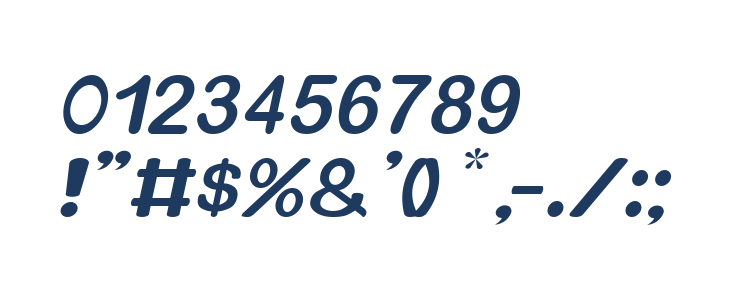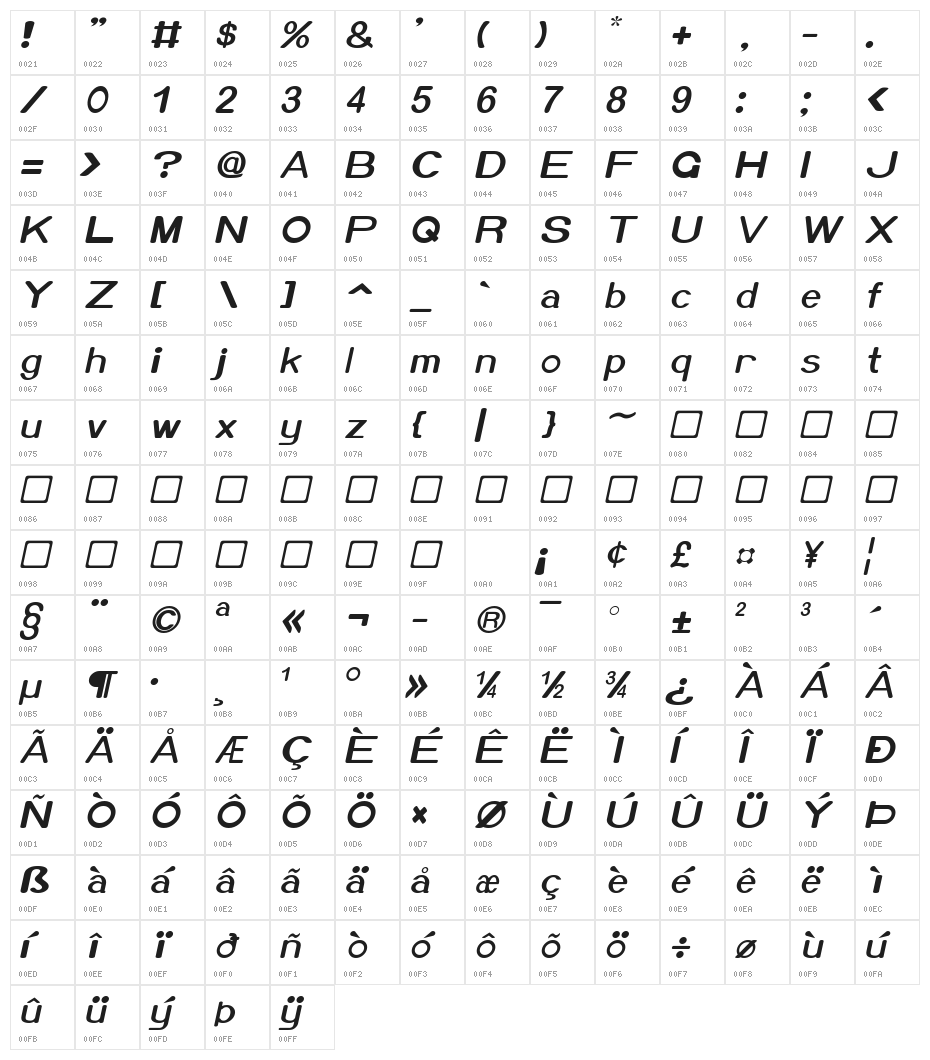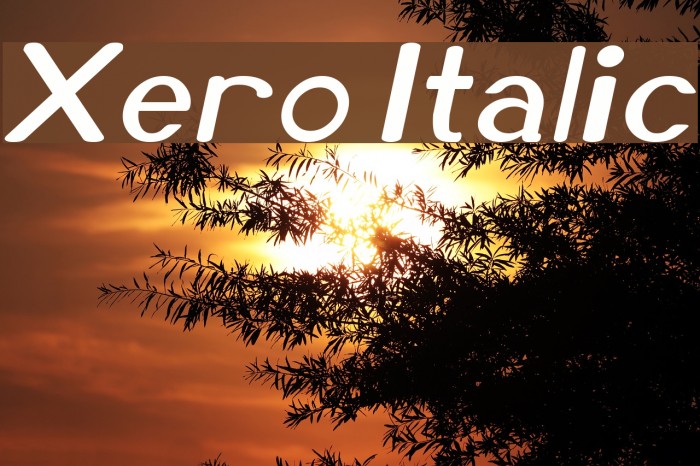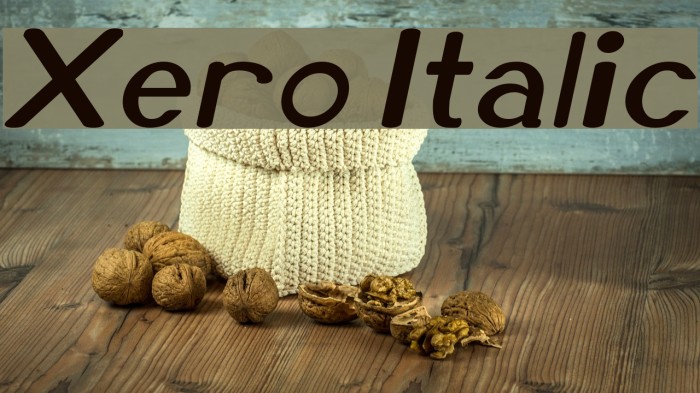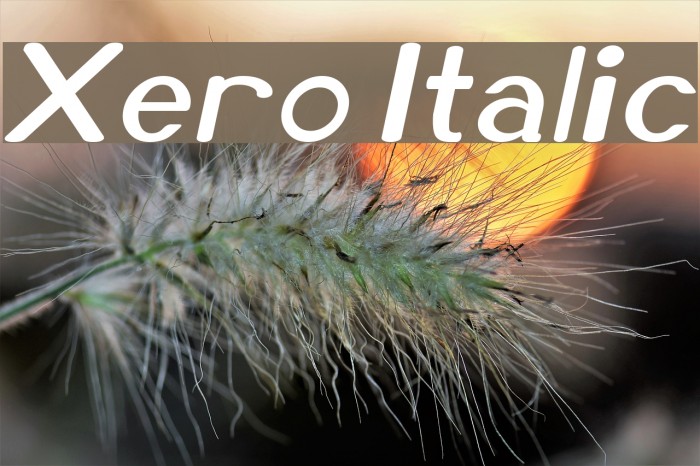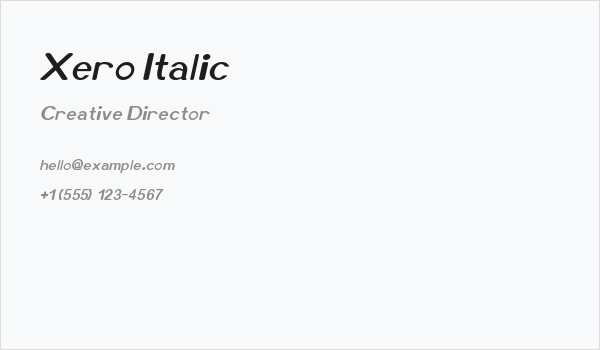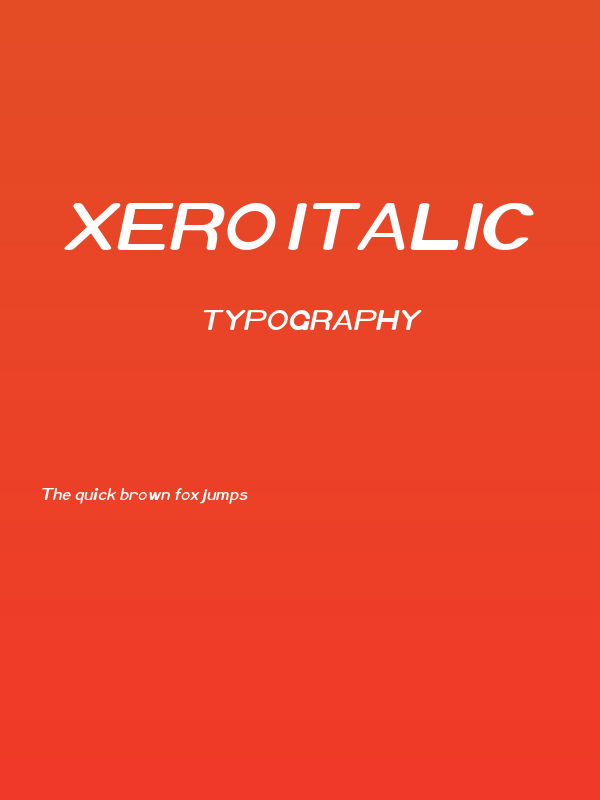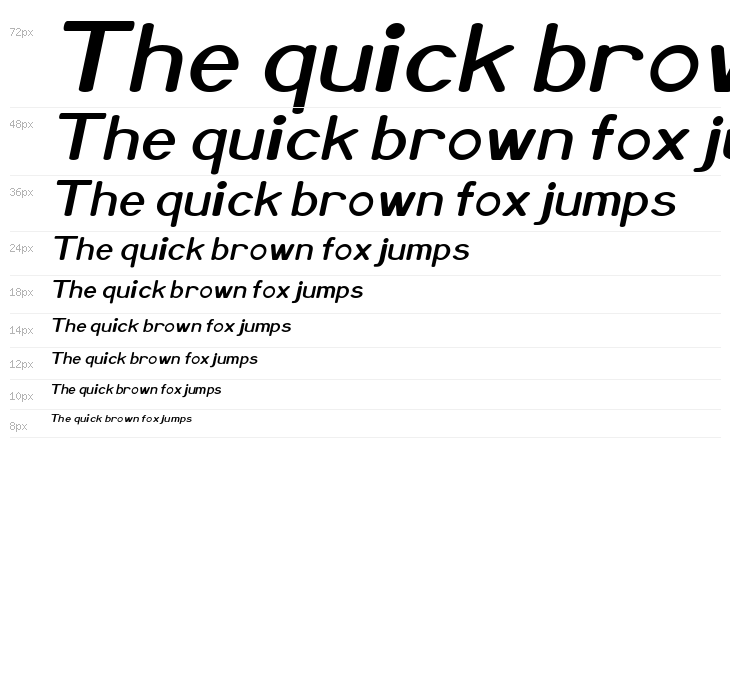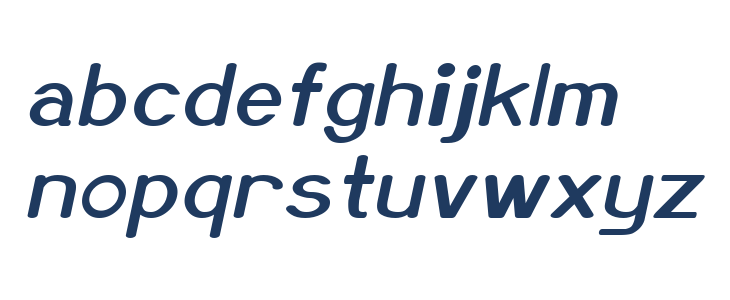
Xero Italic Font
Xero Italic Description
This font features a sleek and modern italic style, characterized by its smooth curves and slightly slanted letters. The uppercase and lowercase letters are well-balanced, with a consistent stroke width that gives it a clean and professional appearance. The numerals are clear and easy to read, making them suitable for various applications. Special characters are distinct and maintain the overall aesthetic of the font. The design is versatile, suitable for both digital and print media, offering a contemporary look that can enhance any project.
| Proposed Projects | Ideal for branding, advertising, digital media, and editorial design projects. |